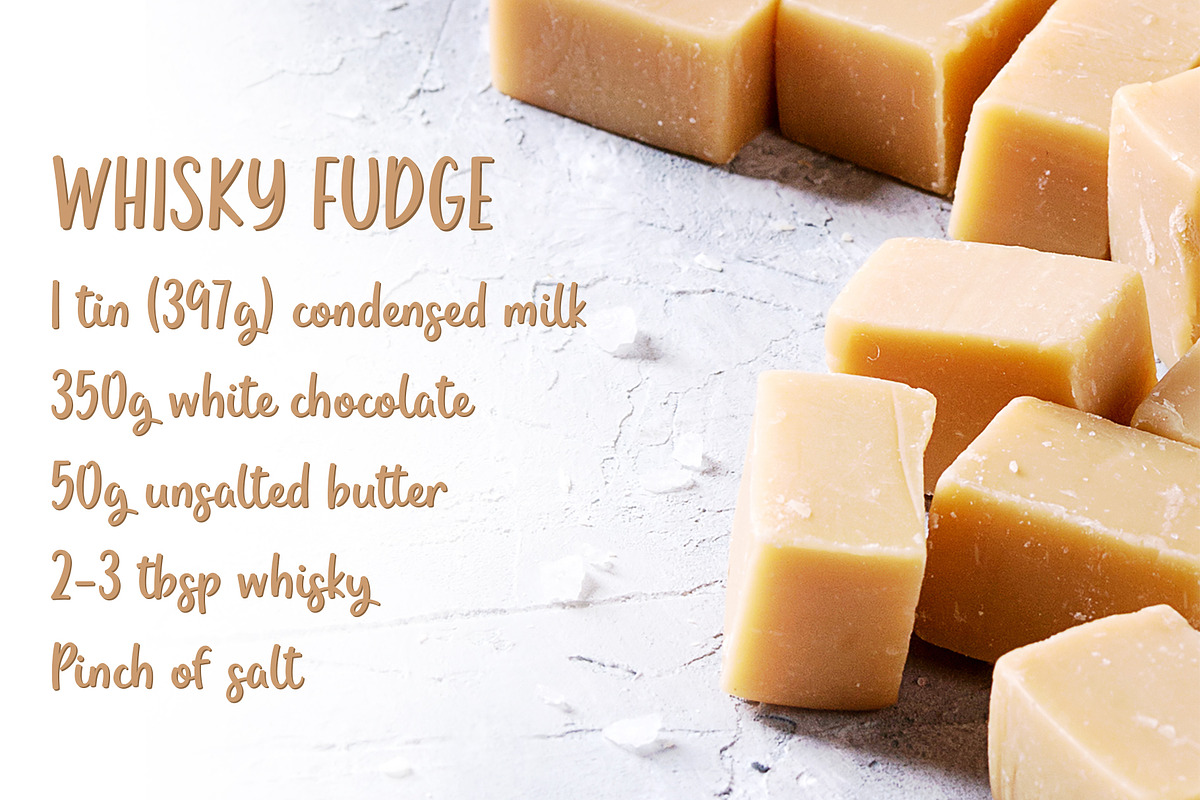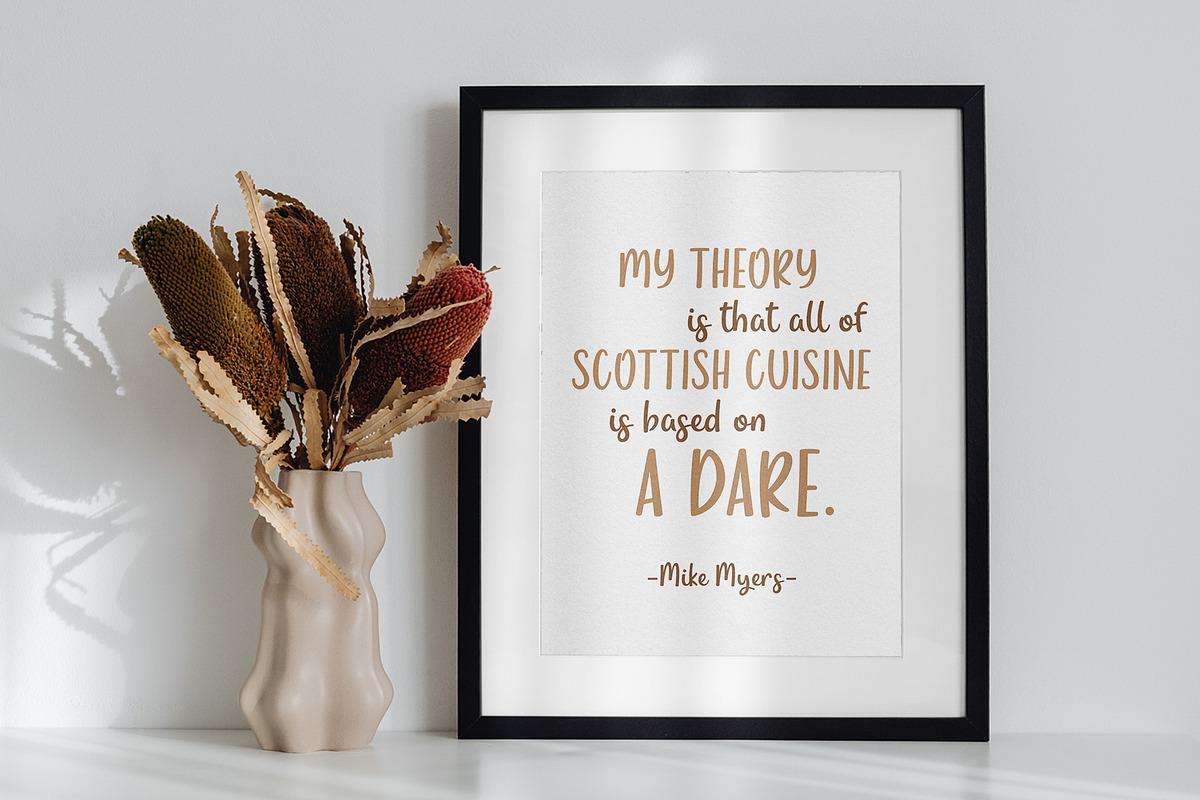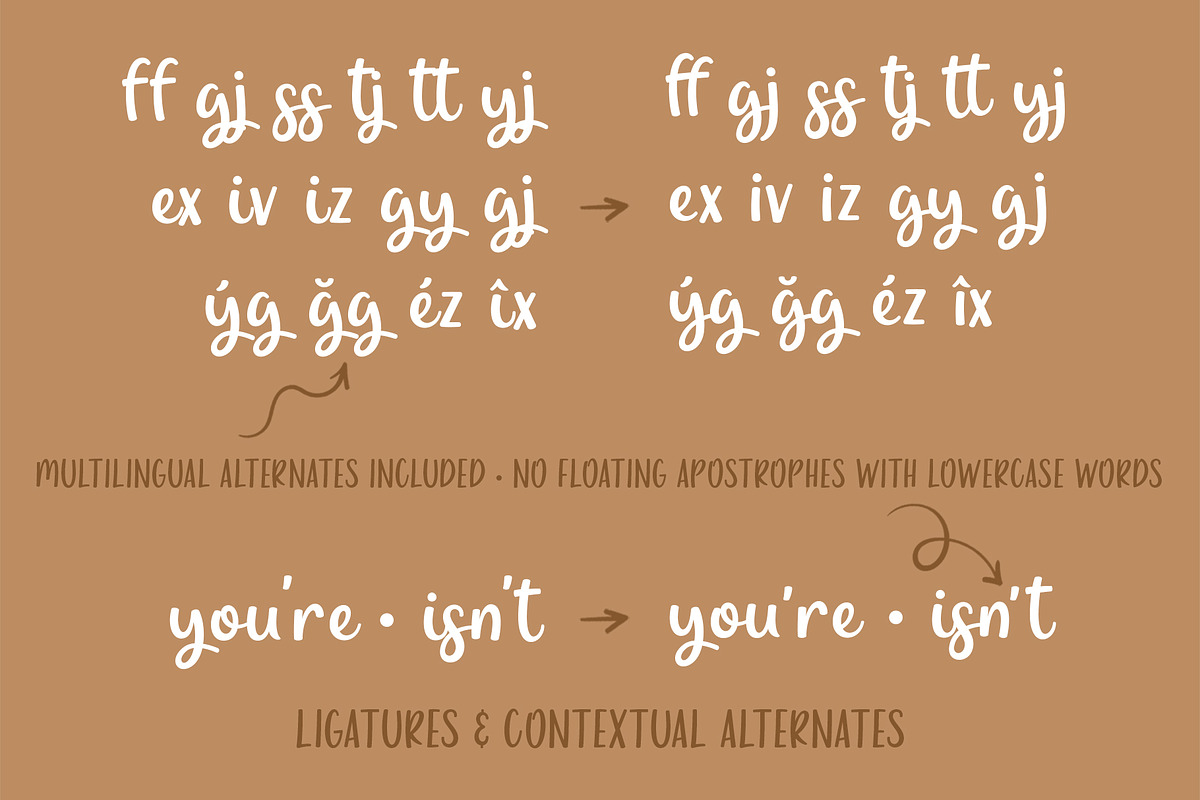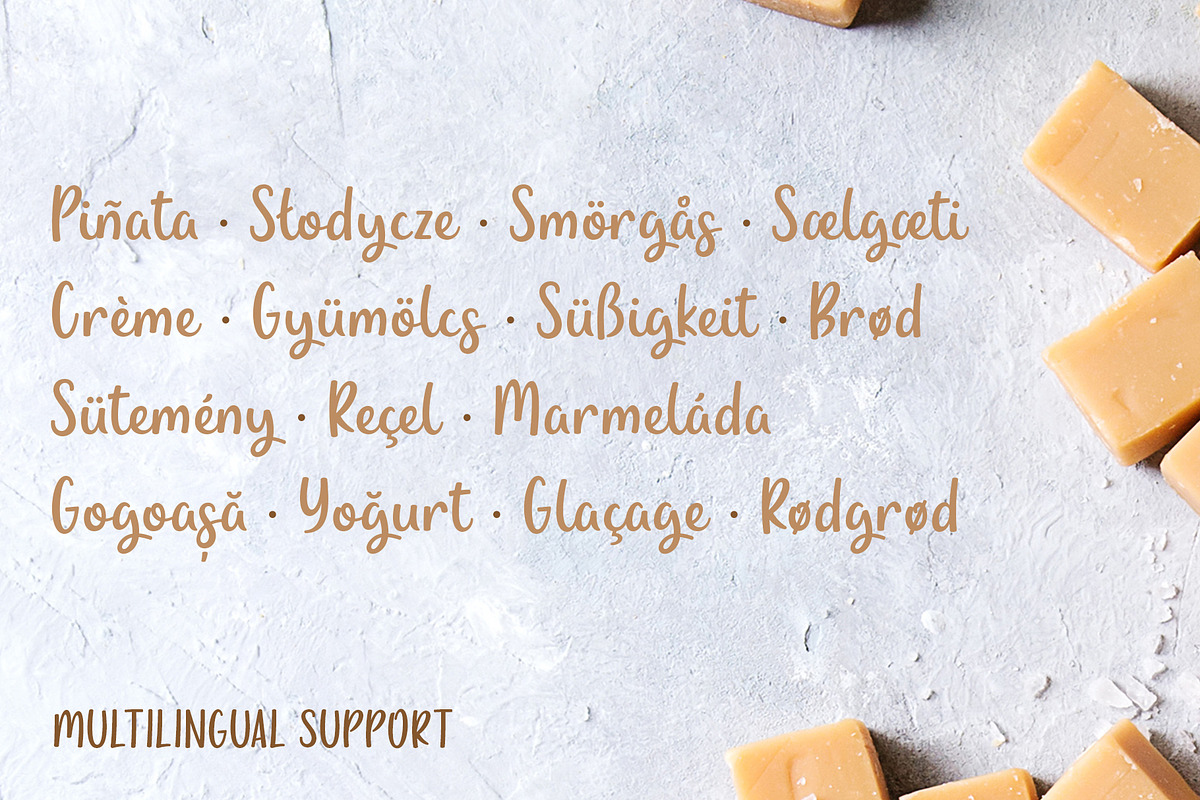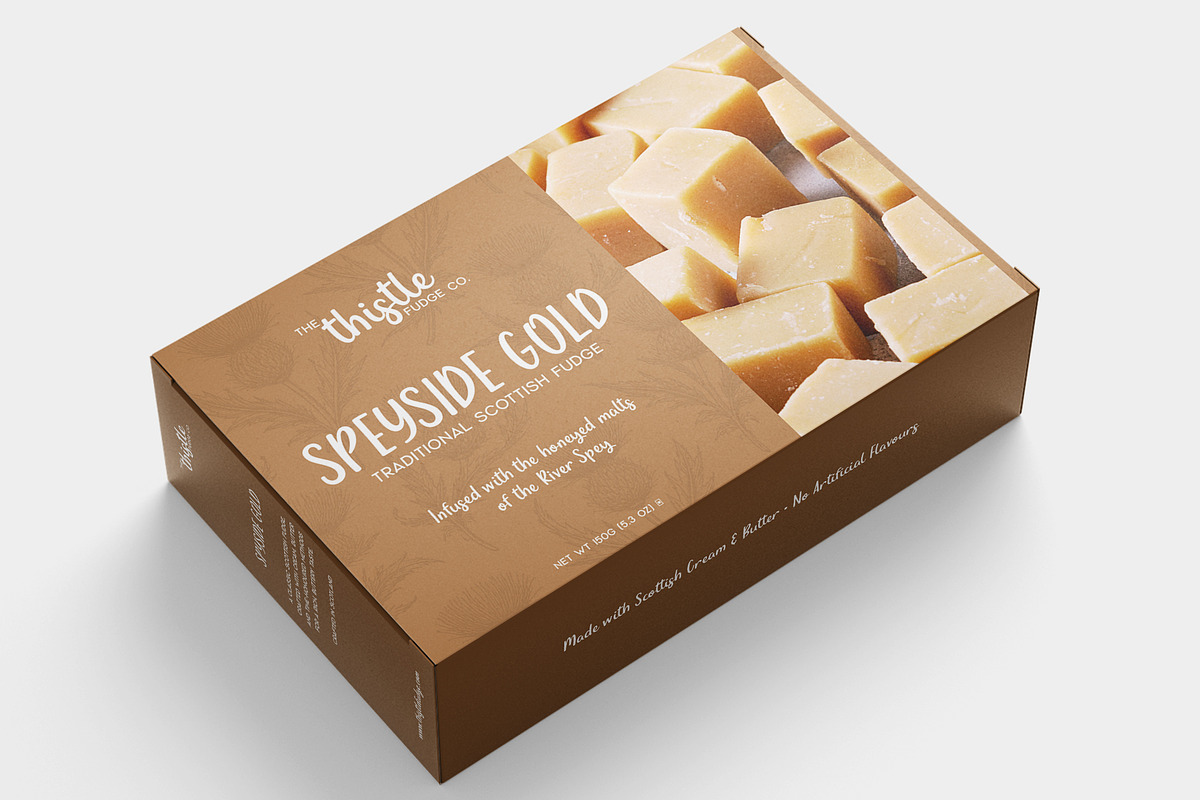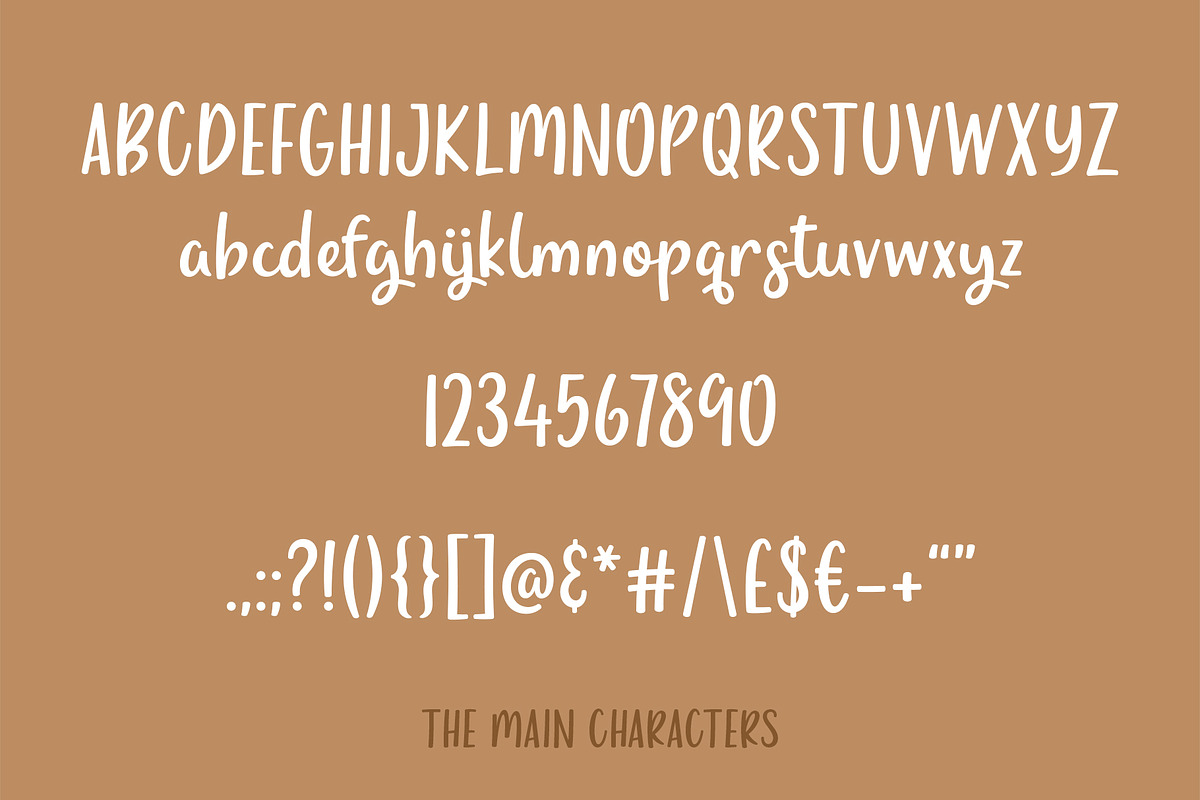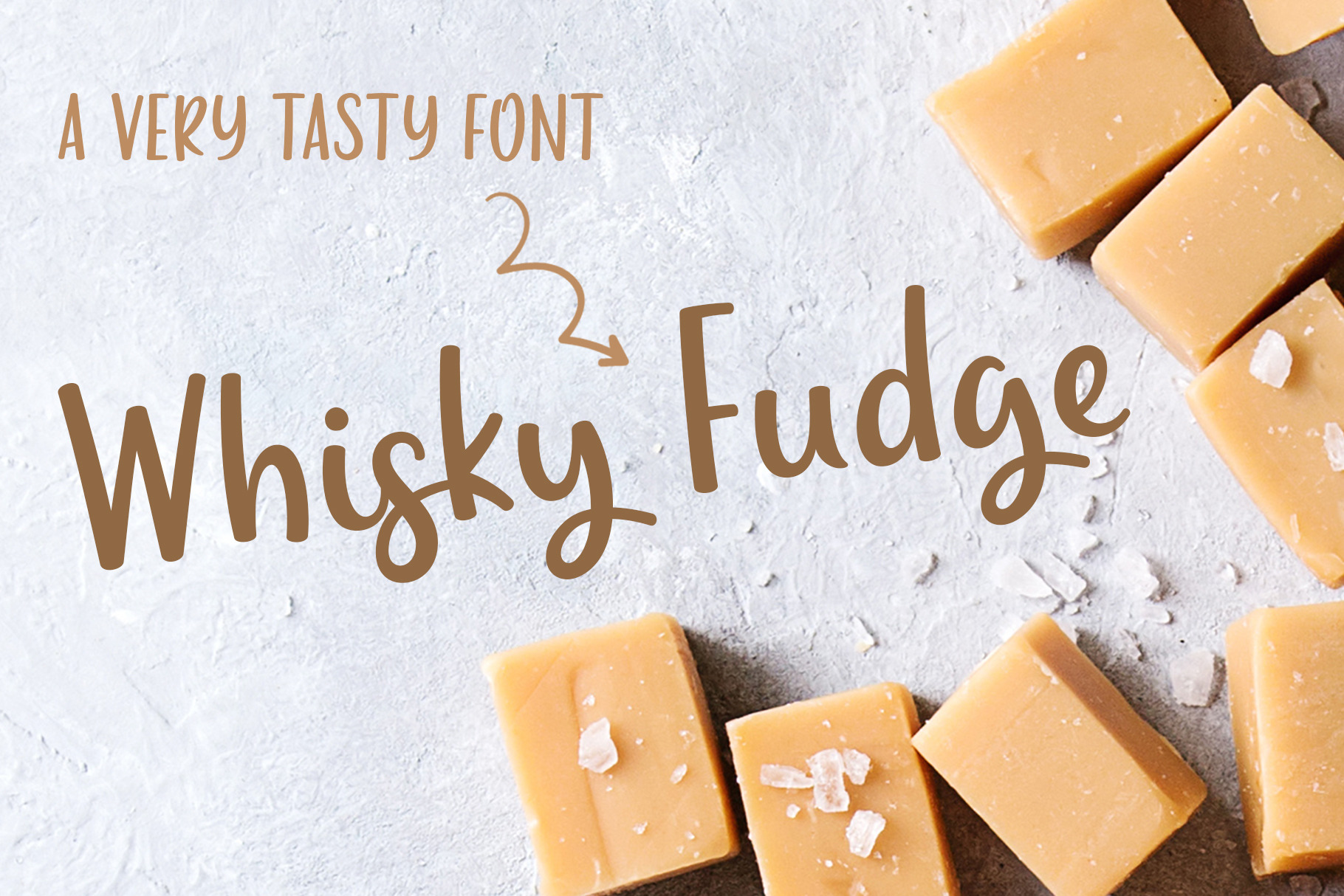
Whisky Fudge - Brush Script Font
Whisky Fudge is a rich, flowing brush script inspired by the smooth, indulgent feel of traditional whisky fudge. Warm and relaxed in tone, it’s designed to feel natural, expressive, and easygoing.
With its handwritten flow and soft curves, it brings a sense of movement without feeling forced – making it a good fit for branding, packaging, logos, and social content that leans more personal and approachable. The brush style keeps things organic while still holding enough weight to be noticed. It balances a playful edge with a bit of boldness, so it works just as well for standout headlines as it does for more casual, everyday use.
Includes uppercase and lowercase characters, numerals, punctuation, and symbols, with multilingual support for European languages.